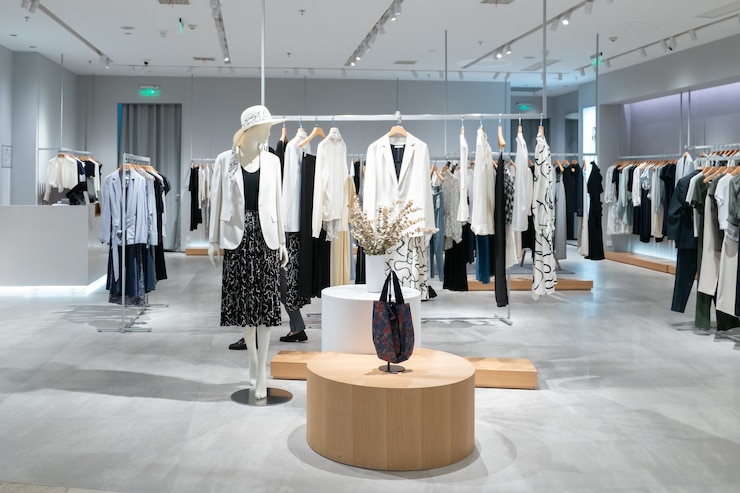
300 Modern Boutique Name Ideas for Every Niche and Vibe
Choosing the perfect name for your boutique is more than just a creative task. The right boutique name ideas can set the tone for your brand and attract the ideal customers. In fact, research shows that names linked to quality or innovation are viewed more positively by consumers. So, your boutique’s name isn’t just a label. It’s your statement.
Key Takeaways
• The right boutique name sets your brand’s tone and attracts your ideal customers.
• Unique and niche-specific name ideas help your boutique stand out in a competitive market.
• Pairing your boutique name with the right fonts enhances brand identity and customer appeal.
300 Winning Boutique Name Ideas for Your Store
Whether it’s elegant, playful, or bold, your boutique name should reflect your brand’s identity. Thus, explore our recommended unique boutique name ideas to make your business shine below!
Boho Vintage Boutique Name Inspirations
1. Wild Fern
2. Moon woven
3. Rustic Muse
4. Sage Thread
5. Clover Dust
6. Velvet Canyon
7. Gypsy Grove
8. Indigo Willow
9. Boho Nest
10. Luna Folk
11. Amber Drift
12. Petal Fawn
13. Retro Wander
14. Willow Wisp
15. Maple Karma
16. Cedar Skies
17. Sun lace
18. Twine Bloom
19. Drift Daisy
20. Terra Soul
21. Fawn Thread
22. Rust Ritual
23. Mossy Dream
24. Woven Aura
25. Thistle Moon
26. Meadow Rae
27. Solstice Root
28. Burlap Kiss
29. Opal Haze
30. Rowan Nest
31. Echo Nomad
32. Lavender Sun
33. Nomad Bloom
34. Desert Muse
35. Prairie Loom
36. Juniper Charm
37. Violet Dust
38. Tumble Thread
39. Patchwork Soul
40. Whim Willow
41. Feather Craze
42. Vintage Whirl
43. Rattan Gold
44. Herbal Muse
45. Dream Fern
46. Velvet Twist
47. Owl Thicket
48. Boheme Dune
49. Dandelion Folk
50. Hearth Charm
51. Amber Ritual
52. Canyon Wink
53. Sundown Stitch
54. Twilight Vibe
55. Gypsy Kindle
56. Rusted Loom
57. Hollow Weave
58. Karma Trove
59. Floral Twine
60. Wander Spice
Elegant Classic Boutique Name Ideas
1. SilkenGaze
2. LuxeHaven
3. OpalWhim
4. ChateauLily
5. IvoryNoble
6. Pearlaire
7. GildedRose
8. Seraphique
9. AmouraBelle
10. Velouris
11. Satinwyn
12. ElaraMode
13. Majestelle
14. Rosetique
15. Aurelisse
16. Gemarelle
17. Velvique
18. HauteMaris
19. Silvique
20. Monarvelle
21. Divinora
22. Couturique
23. Glacienne
24. Noirelace
25. Bellafique
26. Noblelyn
27. Sovairis
28. Vintesse
29. Cielamour
30. Royanique
31. Pearlthorn
32. Elysiven
33. Laventrope
34. Opulenna
35. Elarovelle
36. Glamovive
37. Beauriche
38. Vesperlyn
39. Mirellion
40. Swanleigh
41. Lustrelle
42. Alurique
43. Gracienne
44. Velmarose
45. Mireveau
46. Luxemour
47. Chantisse
48. Faevienne
49. Orlissia
50. Couturette
51. Rocelynn
52. Aetherelle
53. Vintalise
54. Ambrouelle
55. Glissarine
56. Royavelle
57. Aristolyn
58. Fleurisse
59. Maisonora
60. Prestinelle
Stylish Clothing Boutique Name Ideas
1. ChicTheory
2. VelvetNova
3. LuxeMuse
4. Trendoria
5. ModiBelle
6. Fashvibe
7. Stylelyn
8. Couturist
9. WispWear
10. Drapeology
11. SvelteFox
12. ZyraStyle
13. AuraMint
14. Voguelet
15. Trendiara
16. Swankish
17. PolishHue
18. Runqique
19. Stylistaic
20. Boldure
21. Finesstiq
22. CleoVibe
23. ZyloChic
24. Glimmora
25. Poshcura
26. Styletique
27. Allurvia
28. Fabrisse
29. Modevane
30. Hauteza
31. Chicmora
32. Glamivine
33. Trendolia
34. Slayette
35. Vestrendy
36. Glowverly
37. Velvexa
38. Clozure
39. Dazzlyn
40. Lavissia
41. SilqCharm
42. Swaynity
43. Fashnique
44. Lunavogue
45. Couturina
46. Blazentra
47. Snaziora
48. Tresquinn
49. Sleekette
50. Chromyra
51. Gildora
52. Beautro
53. Swishyn
54. Elegancia
55. Modevibe
56. Shayelle
57. Twinkurra
58. Alluressa
59. Glittique
60. Finestique
Unisex-inspired Boutique Name Ideas
1. Urban Haven
2. Echo Loft
3. Noble Thread
4. Slate & Stone
5. Velvet Grove
6. Sage Avenue
7. Crimson Ridge
8. Maple Harbor
9. Jade Summit
10. Copper Elm
11. Cedar & Clay
12. Quartz Line
13. Willow Forge
14. Ivory Oak
15. Bronze Harbor
16. Boulder Nest
17. Pine & Pearl
18. Granite Cove
19. Elm & Ash
20. Olive Branch
21. Onyx & Ivy
22. Birch Hollow
23. Sienna Cross
24. Alpine Nest
25. Glacier Rise
26. Cobalt & Coast
27. Dune & Drift
28. Harbor Shade
29. Falcon Point
30. Luna Harbor
31. Ash & Anchor
32. Sterling Cove
33. Frost & Fern
34. Chestnut Walk
35. River & Reed
36. Basil & Birch
37. Thorn & Timber
38. Meadow Vale
39. Cinder & Cedar
40. Moss & Marble
41. Juniper Crest
42. Obsidian Bay
43. Haven & Hearth
44. Brass & Bloom
45. Sable & Stone
46. Coral & Cove
47. Driftwood Lane
48. Oak & Ocean
49. Harbor & Hearth
50. Tundra & Tide
51. Elm & Ember
52. Clay & Crest
53. Pine & Prism
54. Maple & Moss
55. Slate & Spruce
56. Grove & Grit
57. Iron & Ivy
58. Mist & Maple
59. Canyon & Clay
60. Haven & Hollow
Also Read: The Future of Typography: Top Font Trends for 2025
Minimalist Chic Boutique Names
1. Giggle Grove
2. Poppy Patch
3. Sunny Snuggles
4. Bubbly Bows
5. Merry Munchkins
6. Twirly Tots
7. Peachy Pals
8. Snuggle Sprouts
9. Daisy Doodles
10. Jolly Jumps
11. Peppy Pixies
12. Wiggle Whisk
13. Cuddle Cove
14. Puddle Pals
15. Cheeky Chums
16. Jingle Jars
17. Bouncy Beans
18. Pixie Pop
19. Fizzy Friends
20. Sprout Spark
21. Tiny Tumbles
22. Happy Hopper
23. Doodle Daze
24. Bright Buttons
25. Snappy Snails
26. Whimsy Whirl
27. Bumble Bounce
28. Giggly Gems
29. Pip Pop
30. Tickle Tree
31. Snug Sprites
32. Tinker Tots
33. Bubble Breeze
34. Peppy Peaches
35. Dandy Dots
36. Teddy Trails
37. Muffin Mates
38. Pipkin Patch
39. Jolly Jingles
40. Sunny Sprigs
41. Snazzy Snaps
42. Happy Hugs
43. Pixie Puffs
44. Frolic Fields
45. Bouncy Blossoms
46. Tickle Town
47. Wiggly Wings
48. Peachy Pixies
49. Giggle Garden
50. Snuggle Shack
51. Dandy Doodles
52. Merry Meadow
53. Peppy Pies
54. Twirly Twigs
55. Cuddle Cubs
56. Jingle Jive
57. Fizzy Fawns
58. Bubbly Buds
59. Puddle Pops
60. Cheeky Chirps
Also Read: Font Trends Move Too Fast? Learn to Navigate Them for Digital Era
5 Versatile Fonts for Boutique Logos and Marketing Materials
Once you’ve picked one of the many fashion boutique name ideas that we shortlisted previously, it’s time to choose fonts that match your brand’s style. The right fonts make your logo and marketing materials connect with customers. Here are 5 versatile fonts to boost your apparel business.
1. Balney
Balney Script Font by Zarma Type
2. Verilet
Verile Display Font by Zarma Type
3. Bringbold Nineties
Bringbold Nineties Retro Serif Font by Zarma Type
4. Kangmas
Kangmas Nostalgic Retro Serif Font by Zarma Type
5. Laqula
Laqula Display Script Font by Zarma Type
Also Read: 10 Design Trends to Watch in 2025
Reinvent Your Brand Through Modern Boutique Name Ideas!
Choosing the right boutique name is just the first step to building a strong brand. Equally important are the fonts you use, as they shape how customers see your business. With the right typography, your logo and marketing can truly stand out. Therefore, investing in fonts made for boutiques makes all the difference.